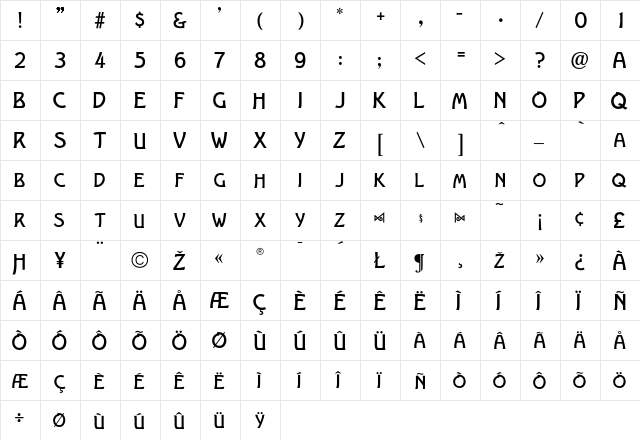
Spartana Regular
Design Context for Spartana Typeface
Spartana is a composed and adaptable typeface that performs quietly and consistently across a wide range of design contexts.